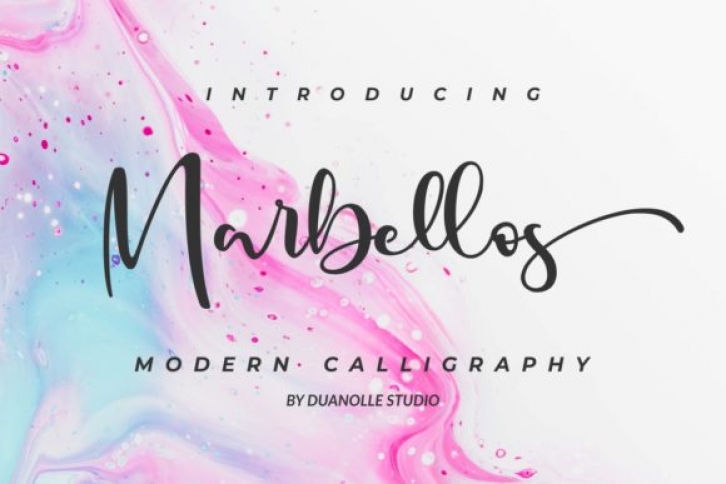
Marbellos is a beautiful script suitable for branding, wedding invitations, logos, craft, handmade, packaging and other projects in need of a handwritten touch.